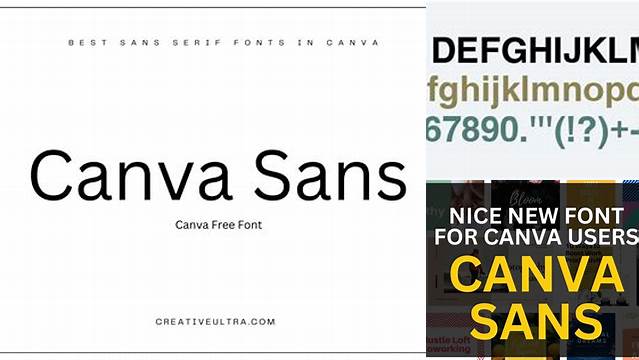
Canva Sans Regular: Free Font Download & Design Guide
Canva Sans Regular Font Family: Free Download and Everything You Need to Know
Hey design enthusiasts! Ever found yourself staring at a blank canvas, yearning for that perfect font to bring your vision to life? Well, Canva Sans Regular might just be your new best friend! This article dives deep into the Canva Sans Regular font family, offering you a free download, exploring its features, and showing you how to make the most of it in your designs. So, let's get started, shall we?
What is Canva Sans Regular? A Deep Dive
Alright, guys, let's get the basics down. Canva Sans Regular is a versatile, clean, and modern sans-serif font created by Canva, the popular online design platform. It's part of the larger Canva Sans font family, which includes several weights and styles, but we're focusing on the Regular version here. Why? Because it's the workhorse! Canva Sans Regular is designed to be easy to read, making it a great choice for body text, headings, and everything in between. Its neutral design makes it incredibly adaptable, working well with a wide range of design styles, from minimalist to bold and colorful. Think of it as the Swiss Army knife of fonts – always ready to tackle any design challenge you throw its way. The font's readability is one of its strongest assets, ensuring your message is clear and accessible to your audience. This is particularly important in today's fast-paced digital world, where grabbing attention quickly is key. The clean lines and open letterforms of Canva Sans Regular contribute to a polished and professional look, suitable for both personal and commercial projects. The font’s availability within Canva’s platform makes it incredibly accessible, and its popularity is a testament to its effectiveness. Many designers use Canva Sans Regular as their go-to font. It's a testament to its simple elegance and ability to complement various design elements without overpowering them. So, whether you're crafting a presentation, designing a logo, or creating social media graphics, Canva Sans Regular is a solid choice.
Canva Sans Regular in Action: Design Applications and Use Cases
Okay, let's get down to the fun stuff! How can you actually use Canva Sans Regular in your designs? The possibilities are truly endless. This font is a chameleon, adapting seamlessly to various applications. First off, consider using it for body text. Its excellent readability makes it ideal for paragraphs, ensuring your audience can easily digest your content. It’s particularly useful for articles, blog posts, and reports. Next, use Canva Sans Regular for headings and subheadings. It provides a clean, modern look that draws the eye without being overly distracting. Think of it as the perfect balance between style and function. Don't be afraid to experiment with different font sizes and weights (if you have access to them) to create visual hierarchy and guide your reader's eye. It's also a great choice for logos and branding materials. Its clean lines and modern aesthetic make it versatile enough to represent a wide range of businesses and brands. Consider using it in your social media graphics. From Instagram posts to Facebook ads, Canva Sans Regular will ensure your text is clear, concise, and on-brand. Think about using it in presentations. Its readability makes it an excellent choice for slide decks, ensuring your audience can follow along with ease. You can also use it for website design. It’s a great choice for website headers, navigation menus, and body text. It creates a consistent look that is both stylish and user-friendly. Explore the different weights of the Canva Sans family, if available to you, to add emphasis and variety to your designs. You can use this for print materials, posters, brochures, and flyers, always ensuring that the message is clearly conveyed. Always remember to consider the context. Adjust the font size, weight, and style according to the design's purpose and target audience. Ultimately, Canva Sans Regular is a flexible and reliable font that can be used in a variety of design applications.
Tips and Tricks for Using Canva Sans Regular Effectively
Alright, here are some insider tips to help you master Canva Sans Regular and take your designs to the next level. First, always prioritize readability. Make sure your text is easy to read, no matter the size or context. This is especially important for body text. Don't be afraid to adjust the font size and line spacing to improve readability. Adjust the kerning and tracking for a polished look, tweaking the space between individual letters to enhance the visual appeal of your text. Make sure you establish a clear visual hierarchy. Use different font sizes and weights to distinguish between headings, subheadings, and body text. This helps guide your reader's eye and ensures your message is clearly conveyed. Try experimenting with different font combinations. While Canva Sans Regular works well on its own, pairing it with another font can add visual interest and personality to your designs. Pair it with a serif font for body text and a sans-serif font for headings. Consider using the font in different weights. The Canva Sans family includes different weights, from light to bold, giving you more flexibility in your designs. Adjust the font size and weight for different design elements to create visual contrast. Another point: Always test your designs. View your designs on different devices and platforms to ensure they look good on everything, from smartphones to large screens. Ensure that the font is properly installed. A common issue is the font not appearing correctly after installation. Double-check the installation process to make sure everything is working as it should. Finally, remember to be consistent. Maintain a consistent font usage throughout your design. This helps create a cohesive and professional look. By implementing these tips and tricks, you can fully harness the power of Canva Sans Regular and create stunning, effective designs.
Conclusion: Embrace the Versatility of Canva Sans Regular
So, there you have it, folks! A deep dive into the world of Canva Sans Regular. From its free download options to its versatile applications, this font is a fantastic tool for any designer. Remember to use it wisely, experiment with different styles, and always prioritize readability and clarity. Happy designing!